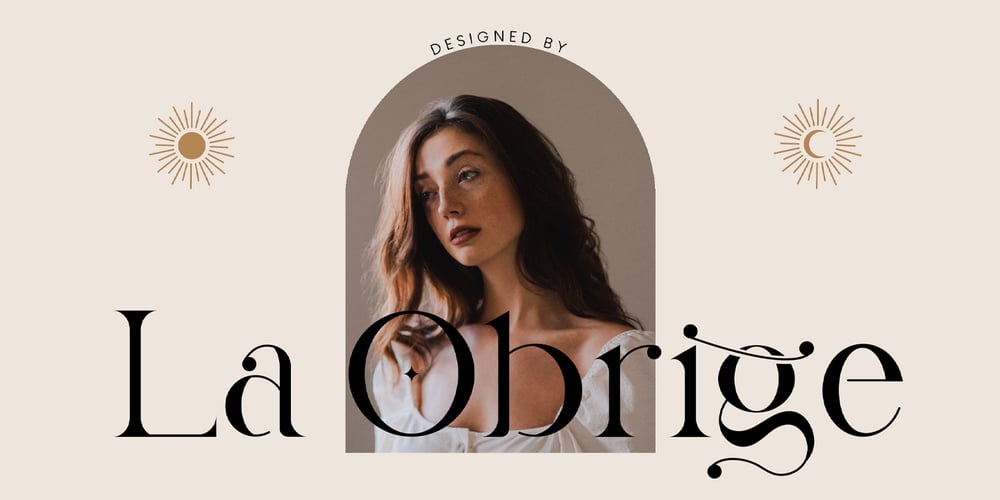
La Obrige
La Obrige font
La Obrige Font Family was designed by Putu Dody Permana and published by Hishand Studio. La Obrige contains 3 styles and family package options. La Obrige is serif font that inspired from the beauty, aesthetic, elegant and Paris. It is really good for water mark, logotype, advertisement, social media posts, product packaging, and more.complete with ligatures regular italic icon kerning multilingual support Shampoo mock up fromhttps://www.graphicsfuel.com/2018/09/dispenser-bottle-psd-mockup/